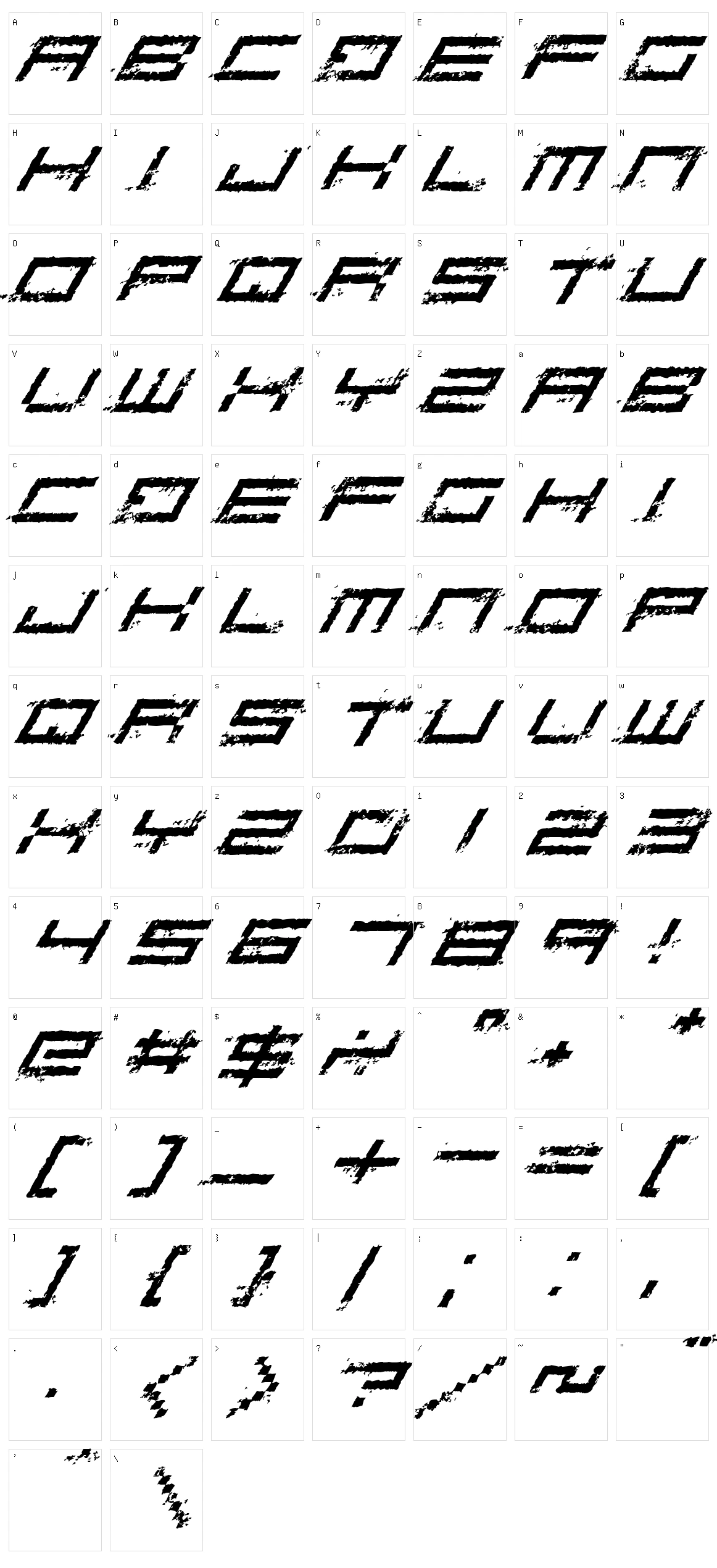
The free font Rusting Robotica is carefully designed by Hawtpixel, showcasing a thoughtful balance of creativity and usability and falls under the Eroded font style. When you download the ZIP file, it contains only 296.51 KB of font files, making it lightweight and quick to download. Please review the license details below to understand permitted usage and distribution rights. If license information is not available, we recommend using this font for personal projects only or contacting the author directly for commercial usage permissions.